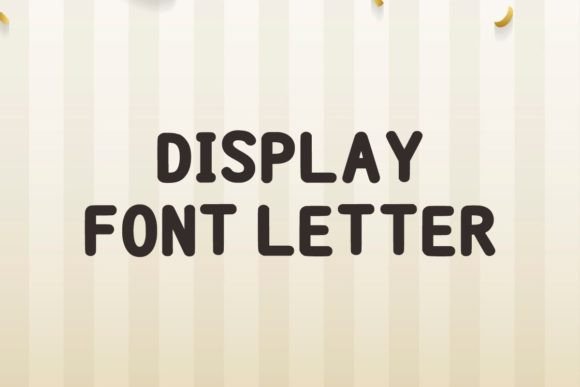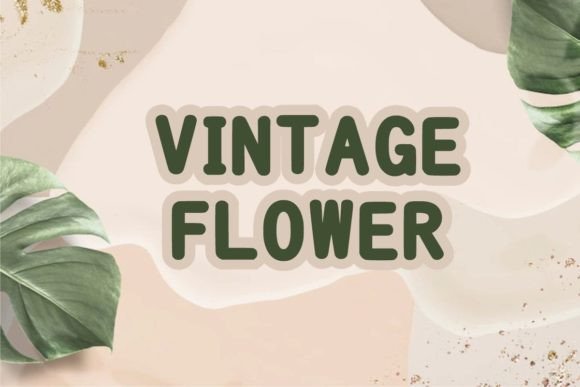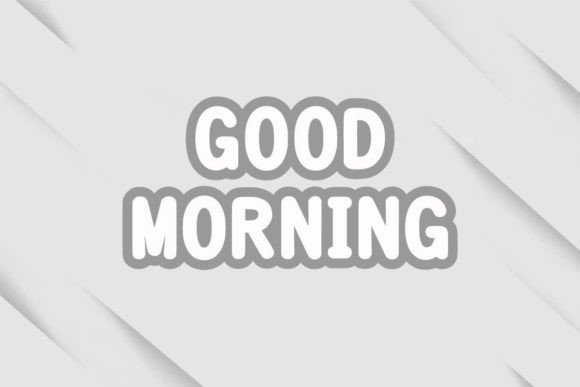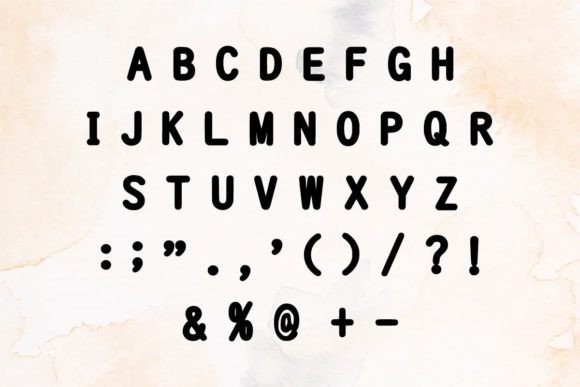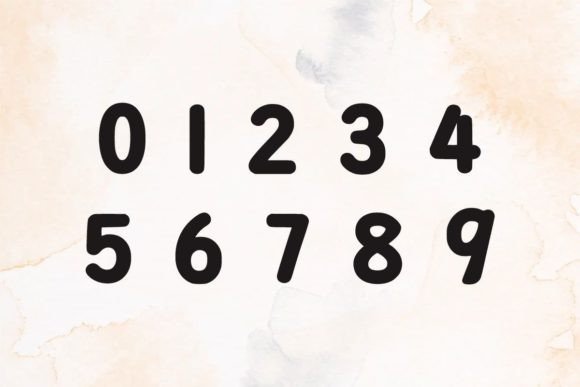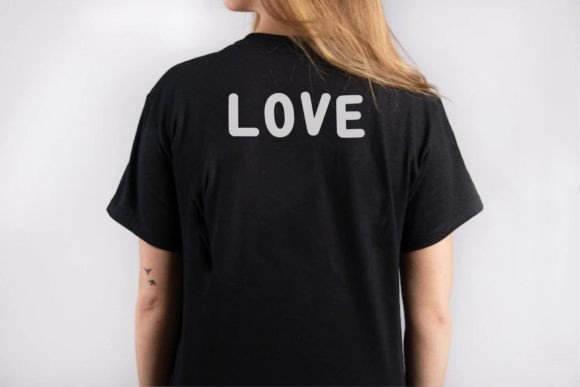
Introducing Graduation Font: The Perfect Choice for a Relaxed Touch
Are you looking for a font that can add a personal touch to your designs? Look no further than Graduation Font, a cute, simple, and friendly handwritten font that’s perfect for a wide range of creative projects. With its informal style and casual vibe, Graduation Font is sure to become a go-to choice for designers and crafters who want to add a relaxed touch to their work.
What is Graduation Font?
Graduation Font is a beautifully crafted handwritten font that’s designed to bring a sense of warmth and approachability to your designs. Its unique and informal style makes it perfect for projects that require a personal touch, such as product packaging, text logos, banners, invitations, quotes, t-shirts, labels, posters, and more.
Key Features of Graduation Font
- Cute and Simple Design: Graduation Font features a simple and adorable design that’s perfect for a wide range of creative projects.
- Handwritten Style: The font’s handwritten style gives it a personal and informal touch that’s sure to resonate with your audience.
- Casual Vibe: Graduation Font has a relaxed and casual vibe that’s perfect for designers and crafters who want to add a touch of warmth to their work.
- Versatile: The font is suitable for a wide range of projects, from product packaging to text logos, banners, invitations, and more.
Why Choose Graduation Font?
There are many reasons why Graduation Font is an excellent choice for designers and crafters. Here are just a few:
- Easily Readable: The font is easy to read, making it perfect for projects that require a clear and concise message.
- Highly Versatile: Graduation Font can be used for a wide range of projects, from digital designs to print materials.
- Unique Style: The font’s unique and informal style sets it apart from other fonts, making it perfect for designers who want to add a personal touch to their work.
- Time-Saving: With Graduation Font, you can create professional-looking designs in no time, saving you time and effort.
Use Cases for Graduation Font
Graduation Font is perfect for a wide range of creative projects, including:
- Product Packaging: Add a personal touch to your product packaging with Graduation Font.
- Text Logos: Create a unique and memorable text logo with Graduation Font.
- Banners: Use Graduation Font to create eye-catching banners for your website or social media channels.
- Invitations: Create beautiful and personalized invitations with Graduation Font.
- Quotes: Add a touch of warmth and personality to your quotes with Graduation Font.
- T-Shirts: Create custom t-shirts with Graduation Font.
- Labels: Use Graduation Font to create custom labels for your products.
- Posters: Create eye-catching posters with Graduation Font.
Tips for Using Graduation Font
Here are some tips for using Graduation Font effectively:
- Pair with Other Fonts: Pair Graduation Font with other fonts to create a unique and visually appealing design.
- Use Different Colors: Experiment with different colors to find the perfect combination for your design.
- Play with Sizes: Play with different font sizes to create visual interest and hierarchy in your design.
- Keep it Simple: Don’t overcomplicate your design – keep it simple and clean to let Graduation Font shine.